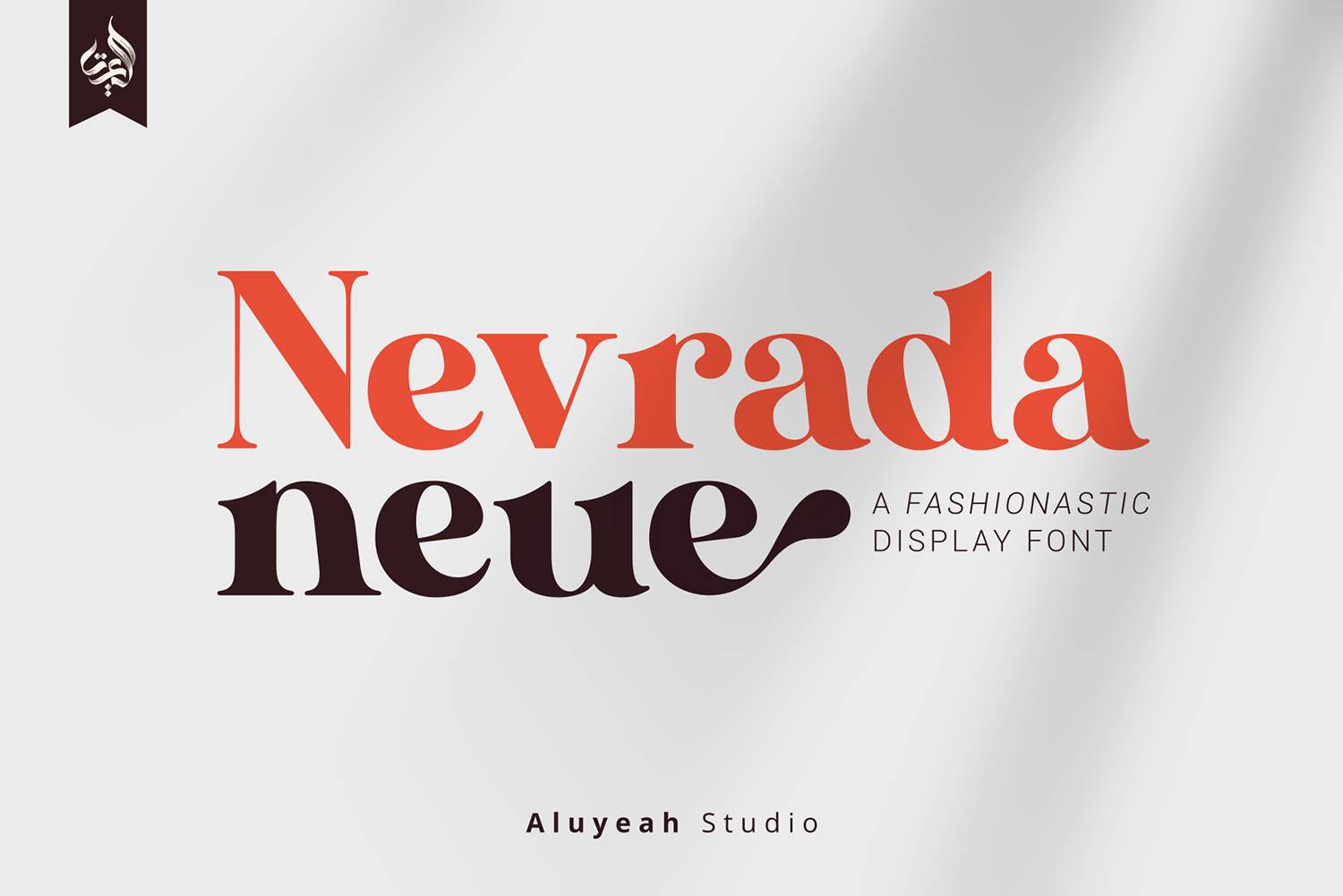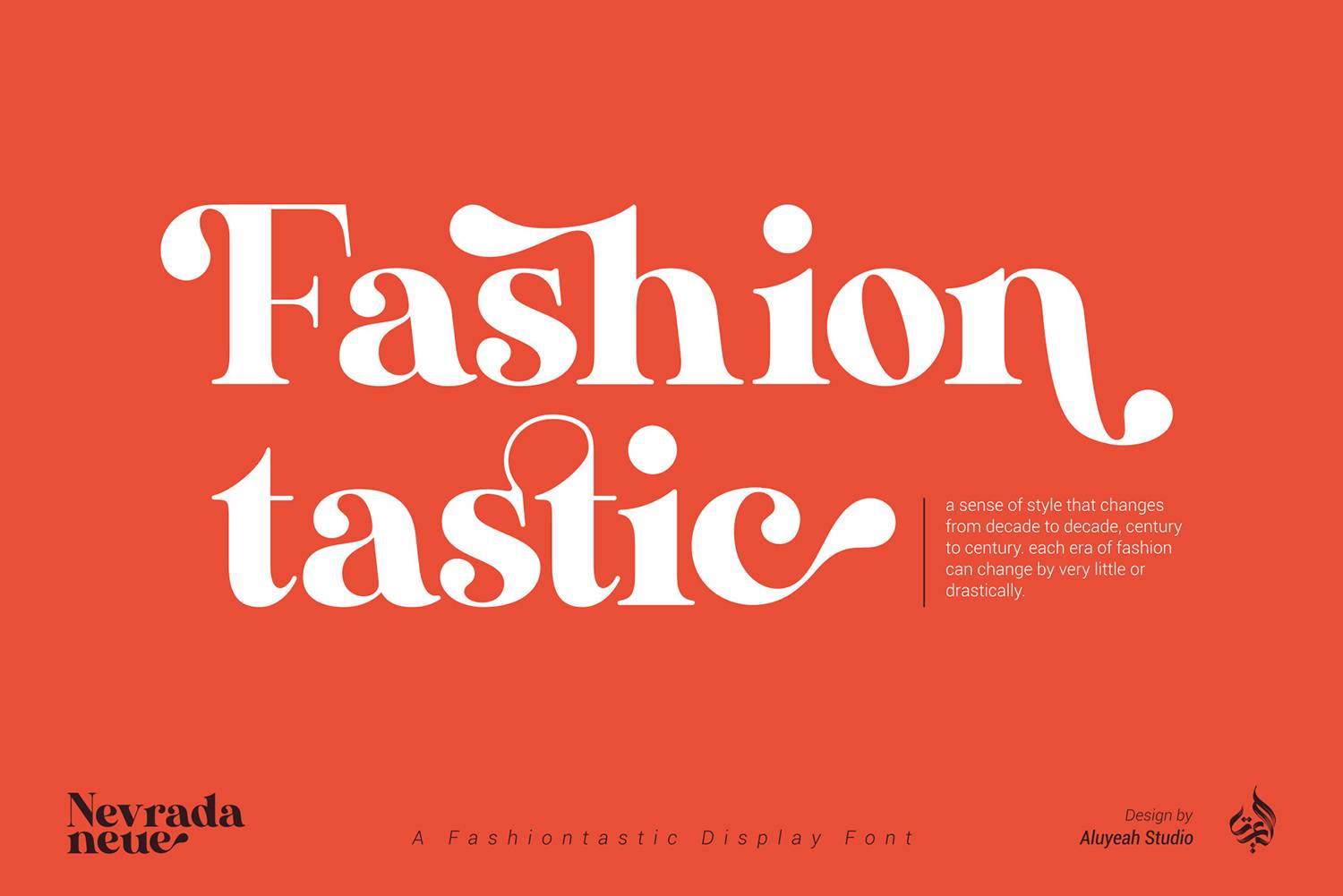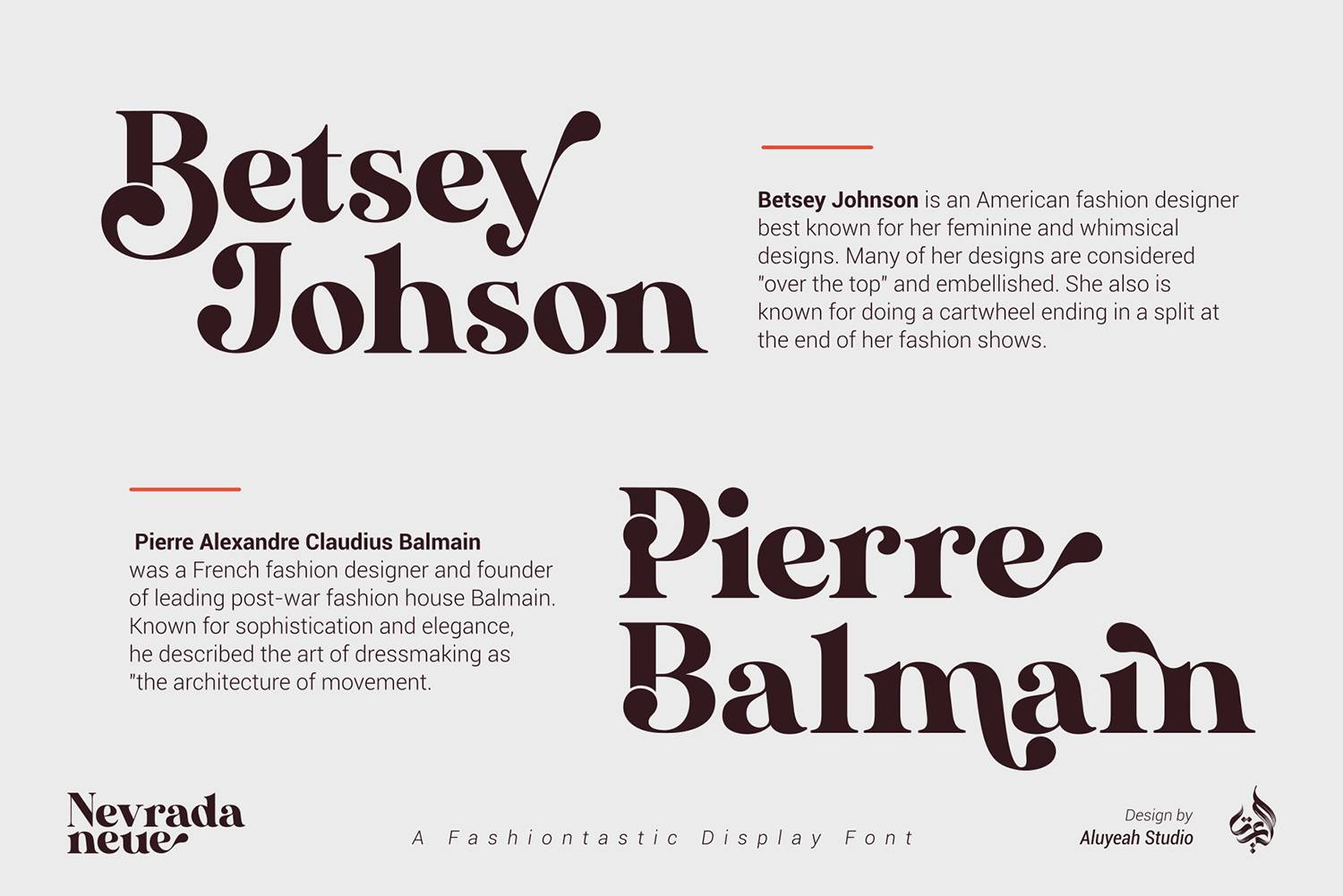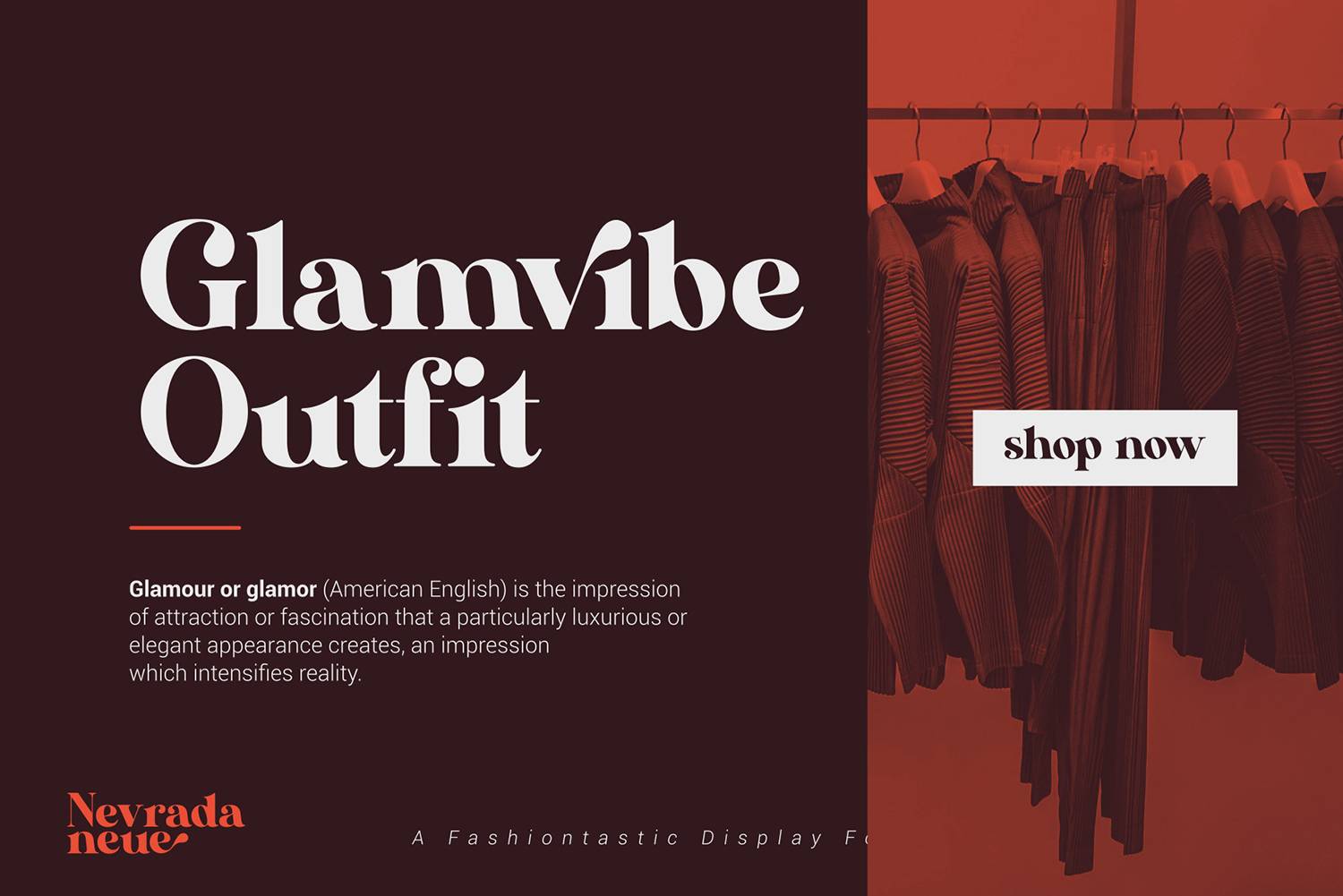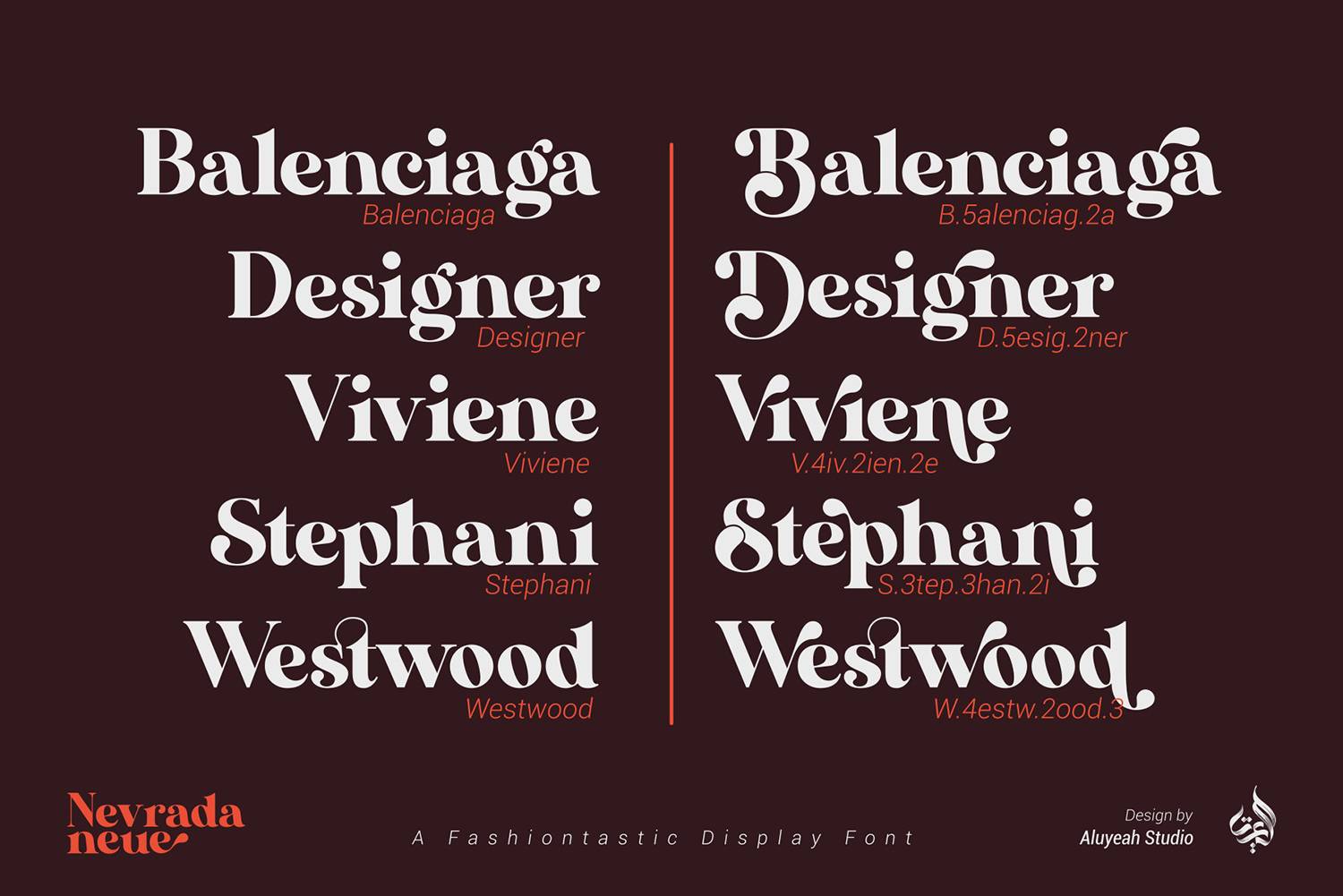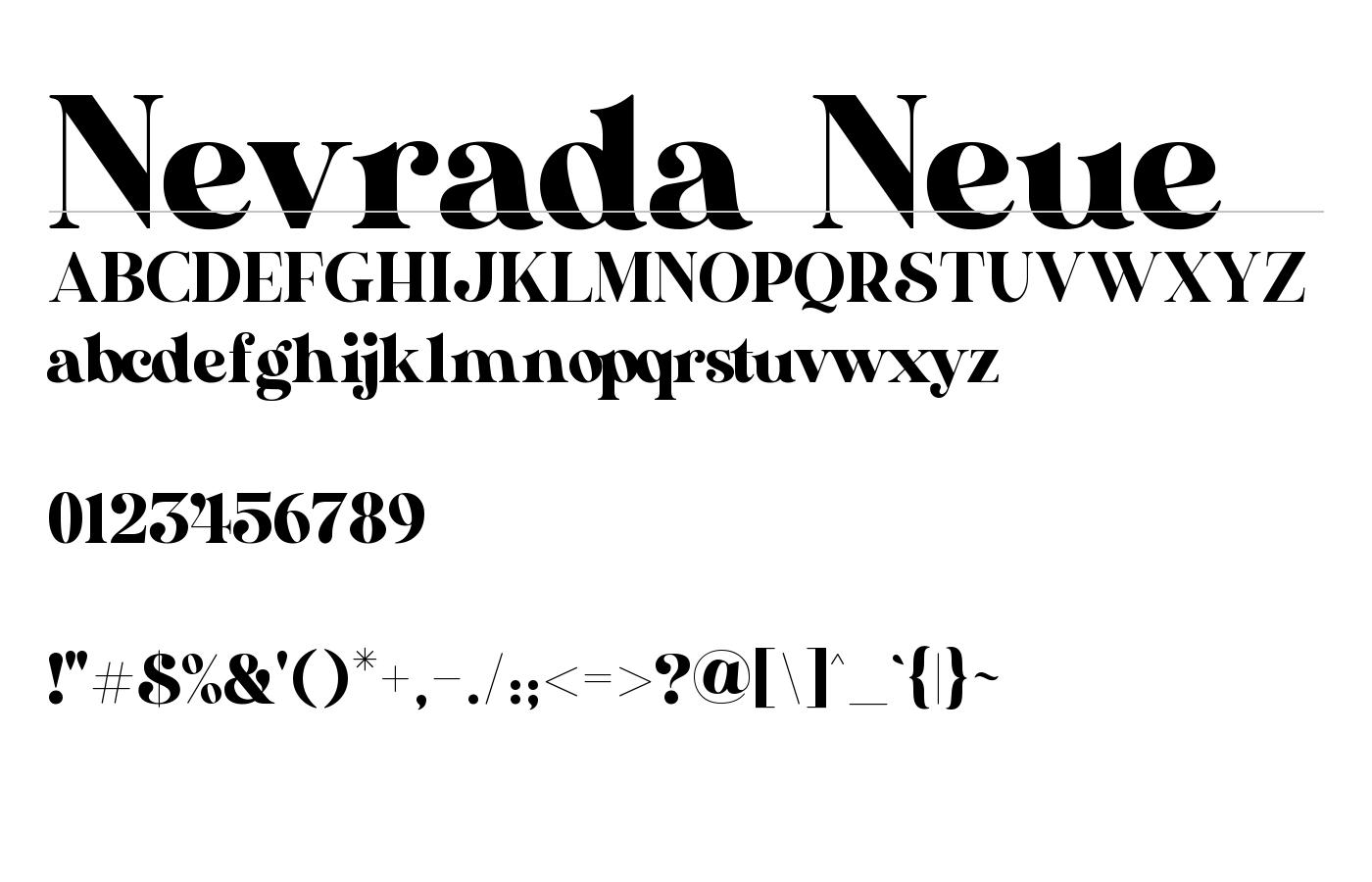
Nevrada Neue is a bold serif font with a strong contrast between thick and thin strokes, elegantly combining modern and classic influences. Its sharp, bracketed serifs and unique letterforms give it a luxurious and sophisticated feel, making it ideal for high-end branding, editorial headlines, and stylish packaging. This font works well when you want to convey elegance and authority with a contemporary edge.
Nevrada Neue Font
About Nevrada Neue Font